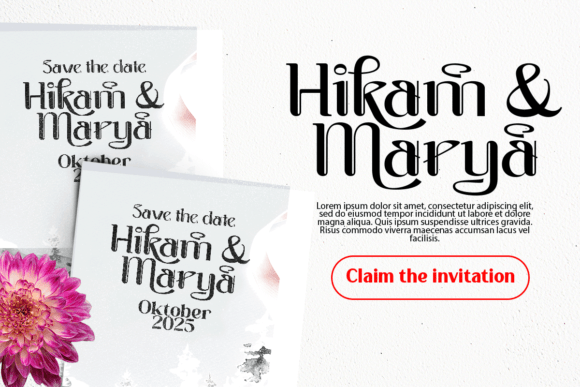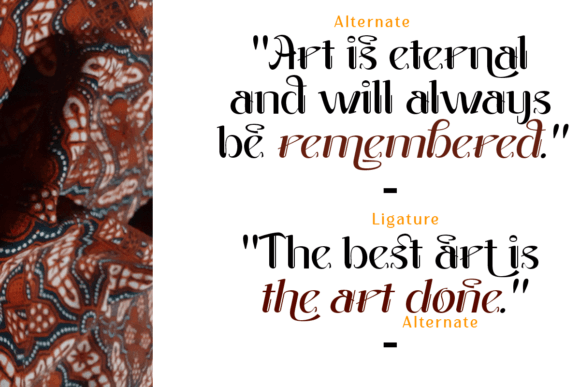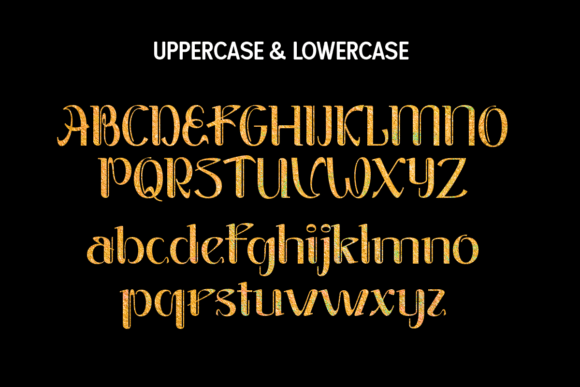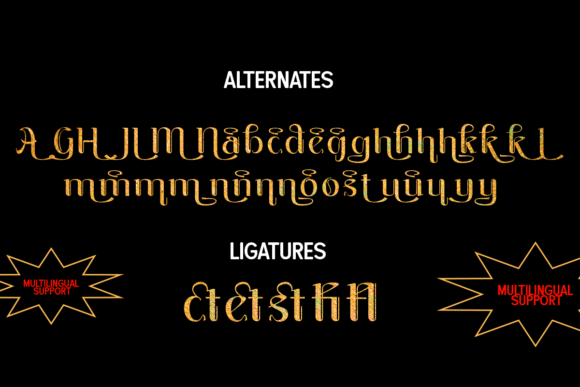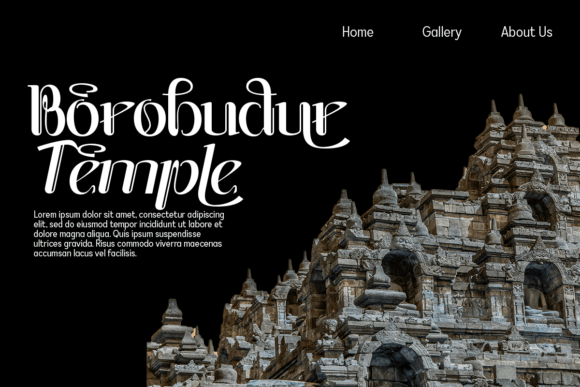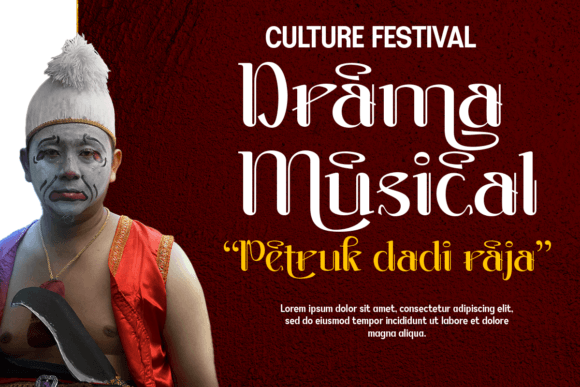
Introduction to Laraboyok Font
Have you ever stared at a blank canvas, desperately searching for that perfect design element to bring your creative project to life? For many designers, this moment is a familiar feeling – one that can be both exhilarating and overwhelming. But what if you could find a design resource that not only sparks inspiration but also adds a touch of authenticity to your work? Enter the Laraboyok Font, an ethnic display font inspired by the Javanese script.
Key Features of Laraboyok Font
- Unique and creative design suitable for various creative projects
- Perfect for designers and artists looking for a distinctive and modern font
Honest Review: Laraboyok Font
I recently had the chance to experiment with the Laraboyok Font, and I must say it’s been a mixed bag for me. As a designer, I appreciate having access to high-quality design resources like this one.
What works well: ✨ The font has a unique, playful vibe that’s perfect for creative projects like children’s book illustrations or whimsical branding. The bold lines and quirky shapes add a touch of personality to any design.
However, I did encounter a few limitations: ⚠️ The font’s consistency can be a bit hit-or-miss, with some letters looking a bit wonky or uneven. Additionally, the font’s size can become overwhelming in certain contexts.
Overall, I’d say the Laraboyok Font is a solid addition to any designer’s toolkit. While it may not be perfect, its unique style and features make it worth exploring for the right project.
- Unique, playful vibe
- Quirky shapes and bold lines
- Easy to layer and composite
- Great for illustrations and branding